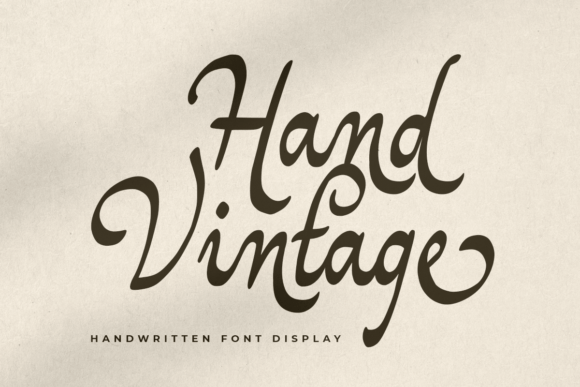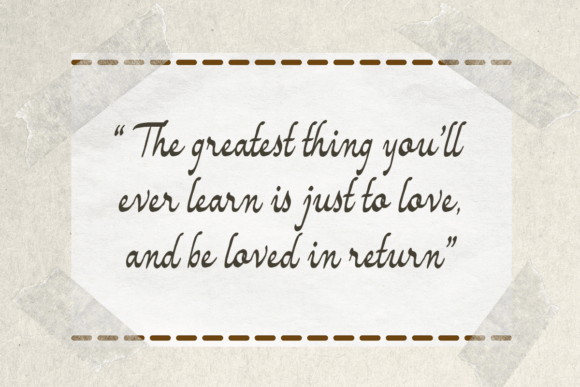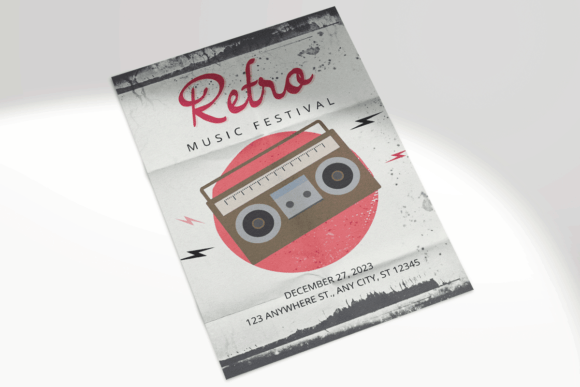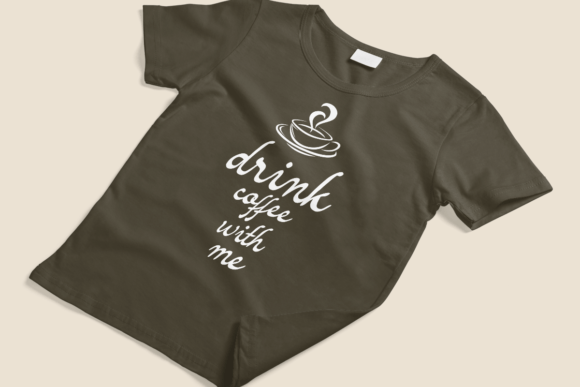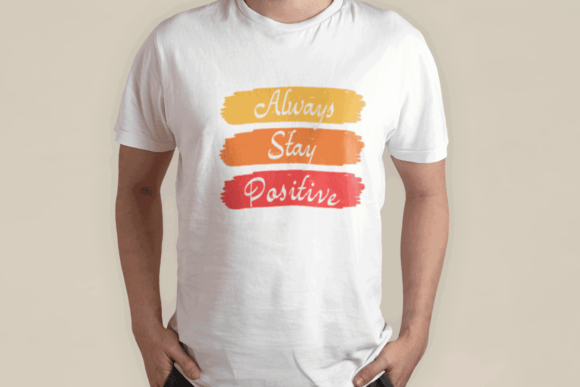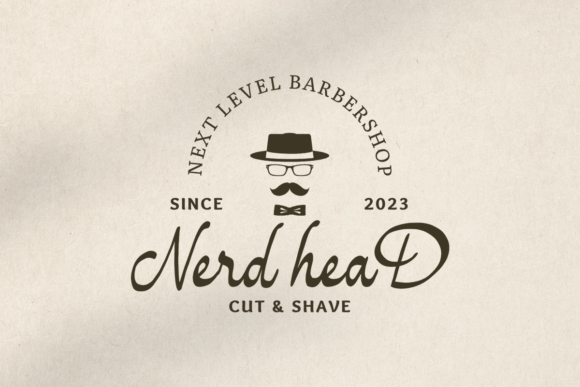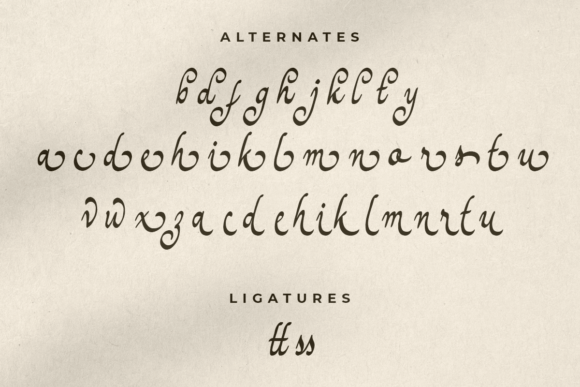
Hand Vintage Font
About Hand Vintage Font
“Hand Vintage” is a font that evokes a sense of nostalgia and retro charm, designed in a stylish handwritten script style reminiscent of the good old days when love letters were penned with care and ideas were jotted down on paper with a fountain pen. Its vintage aesthetic brings a touch of classic elegance to your designs, making it perfect for adding a final nostalgic touch, whether it’s on wedding invitations, birthday cards, or any other creative project.
**Retro Handwritten Charm**: “Hand Vintage” captures the charm of retro handwriting, transporting you back to a time when handwritten letters held a special significance. Its graceful strokes and vintage flair create a sense of authenticity, making it ideal for designs that require a touch of classic elegance.
**Perfect for Special Occasions**: Particularly well-suited for special occasions, “Hand Vintage” adds a touch of sophistication to event invitations and heartfelt messages. Its handwritten style conveys a sense of warmth and personal connection, making it perfect for wedding invitations, love letters, birthday cards, and other sentimental designs.
**Nostalgic Elegance**: The font’s nostalgic elegance adds a unique character to your designs. Its timeless appeal makes it suitable for various creative projects where a vintage touch is desired. Whether used in digital media or print, “Hand Vintage” adds a touch of refined nostalgia, enhancing the overall aesthetics of the design.
**Access to Amazing Glyphs and Ligatures**: “Hand Vintage” goes the extra mile by being PUA encoded, allowing you to access a wide array of amazing glyphs and ligatures with ease. This feature enhances your creative freedom, enabling you to experiment with unique letter combinations and decorative elements, adding further customization to your designs.
In summary, “Hand Vintage” is more than just a font; it’s a journey into the past, capturing the essence of handwritten elegance. Its stylish retro script style, combined with easy access to glyphs and ligatures, makes it a valuable asset for designers seeking to infuse their projects with a sense of vintage charm. By incorporating “Hand Vintage” into your designs, you can evoke the romance of bygone eras, creating a memorable and nostalgic experience for your audience. Let “Hand Vintage” be the elegant storyteller that adds a touch of timeless sophistication to your creative endeavors.